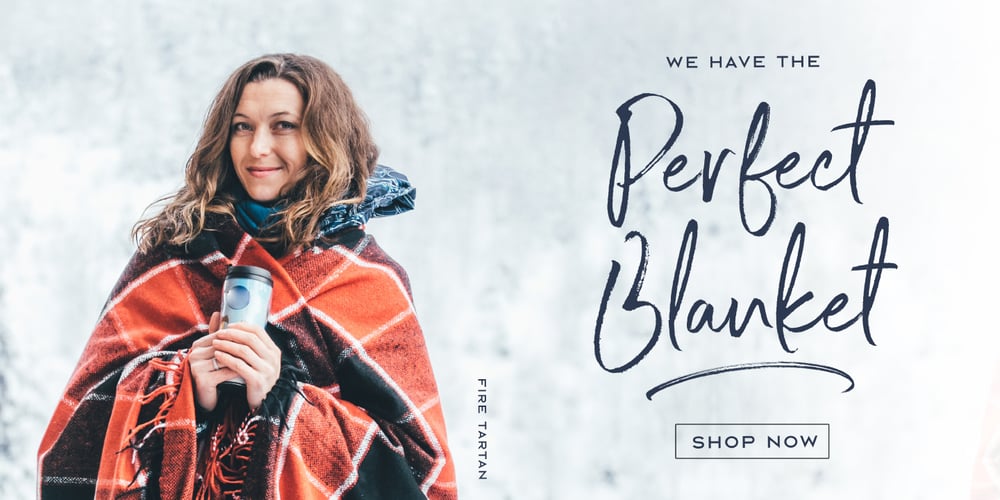
Port Blair Font Family was designed by Greg Nicholls and published by Rook Supply. Port Blair contains 3 styles and family package options. Point Blair is a script typeface that mimics natural handwriting and signature styles. Inspired by the scribblings found in travel journals from early explorers, this script font focuses on a free flow feel, with real brush pen texture and variance built into each character. To keep things looking natural, every character a-z and A-Z has an alternate available so that you can add variance to your text.